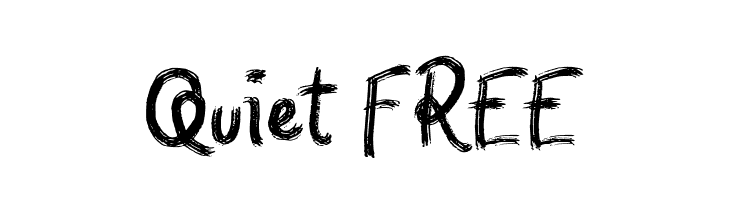
( Fonts by Juha Korhonen )
A distressed, collage-style font with a chaotic and artistic appearance.
A playful, bold font with a hand-drawn, whimsical style.
A bold, hand-drawn font with textured, sketchy strokes.
( Fonts by junkohanhero )
A tall, distressed font with jagged edges, perfect for horror themes.
A haunting, distressed font with tall, narrow letterforms and a scratchy texture.
( Darrell Flood )
A playful, cat-themed font with whimsical elements and bold, friendly characters.
( Dismantle Destroy - Matthew Tyndall - creativemarket.com/Dismantle )
A bold, decorative font with unique serifs and a vintage-modern style.
( Dismantle Destroy - Matthew Tyndall - creativemarket.com/Dismantle )
A bold, outlined decorative font with geometric and modern elements.